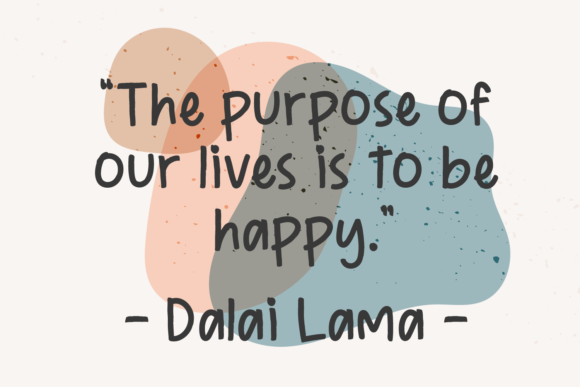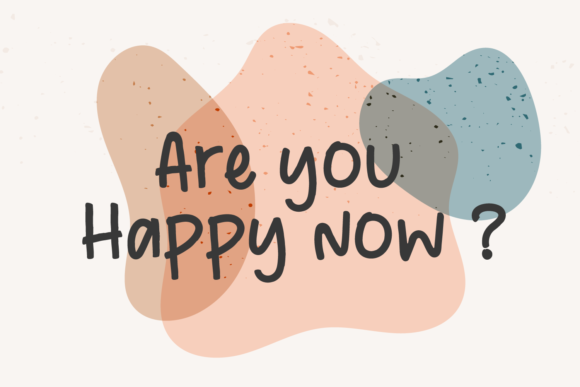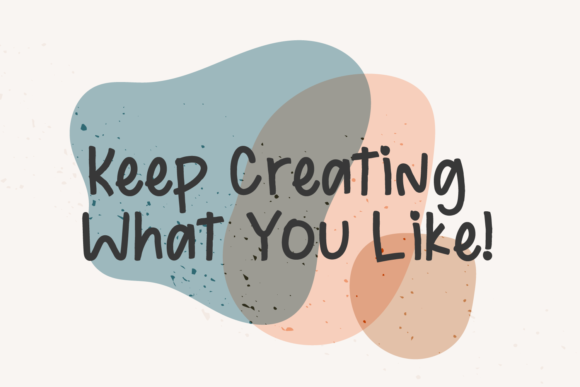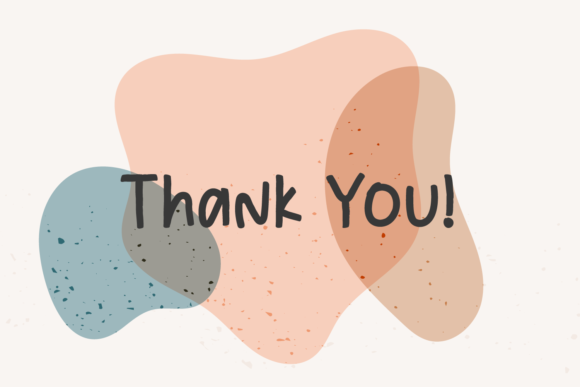
All I Ever Need Font
About All I Ever Need Font
Introducing a brand new handwritten font – All I Ever Need. It looks fun and cute, and it will simply make your creations look better!